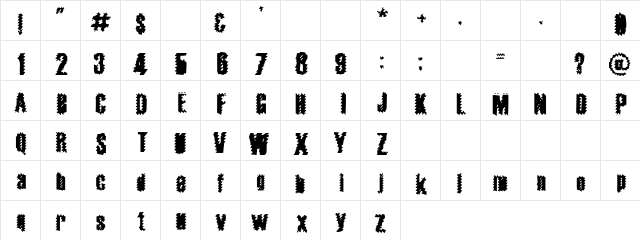
Swateeth
Design Context for Swateeth Typeface
Swateeth is a composed and adaptable typeface that performs quietly and consistently across a wide range of design contexts.